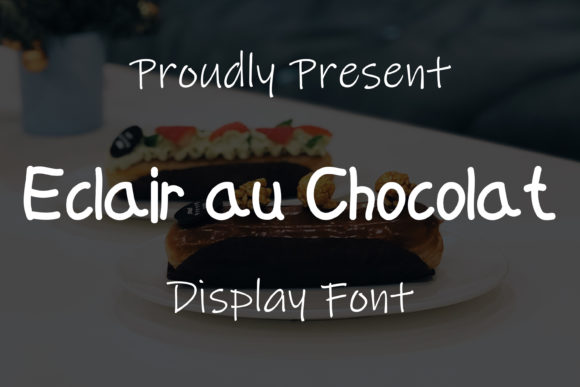
Journey into the whimsical world of Eclair Au Chocolat, a captivating handwritten font that will enchant your designs with its charm and elegance. Step into a realm of creativity where letters dance gracefully on the page, embodying the allure of handwritten notes and the warmth of personal correspondence.
Indulge in the beauty of Eclair Au Chocolat, a font family that exudes charm and personality. Its meticulously crafted characters, reminiscent of delectable chocolate eclairs, add a touch of sweetness and playfulness to your designs. Unleash your imagination and let your words flow effortlessly through the curves and swirls of Eclair Au Chocolat, creating visual masterpieces that captivate and inspire.
With each stroke of your keyboard, Eclair Au Chocolat transforms ordinary text into expressive works of art. Its whimsical style adds a touch of magic to invitations, greeting cards, social media posts, and branding materials, making them stand out from the mundane. Embrace the allure of Eclair Au Chocolat and let your designs bloom with creativity and charm.
Immerse yourself in the world of Eclair Au Chocolat, where imagination meets reality, and words become works of art. Discover the endless possibilities that await you as you explore the depths of this enchanting font. Let your designs shine with a touch of whimsy and charm, captivating your audience with every stroke of your pen or keystroke.